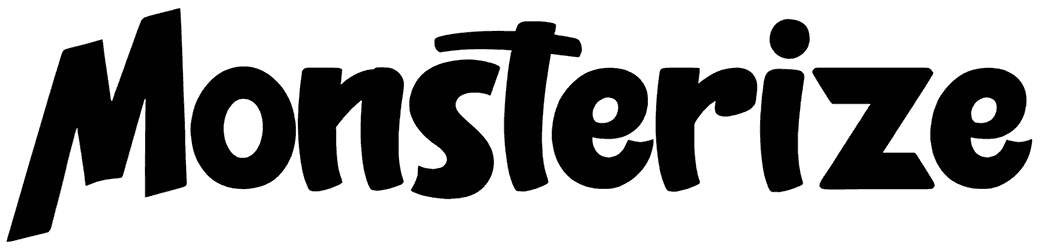
Monsterize Font
While your graphic content might look a little bit repetitive and duplicated, we bring a cartoon font such as Monsterize that comes with three distinctive styles and has the real ability to add a sense of freshness, fun, momentum, and jauntiness to them. Its characters are somehow crooked and tilted, so it would be perfect on posters, the user interface of applications, and product packaging.